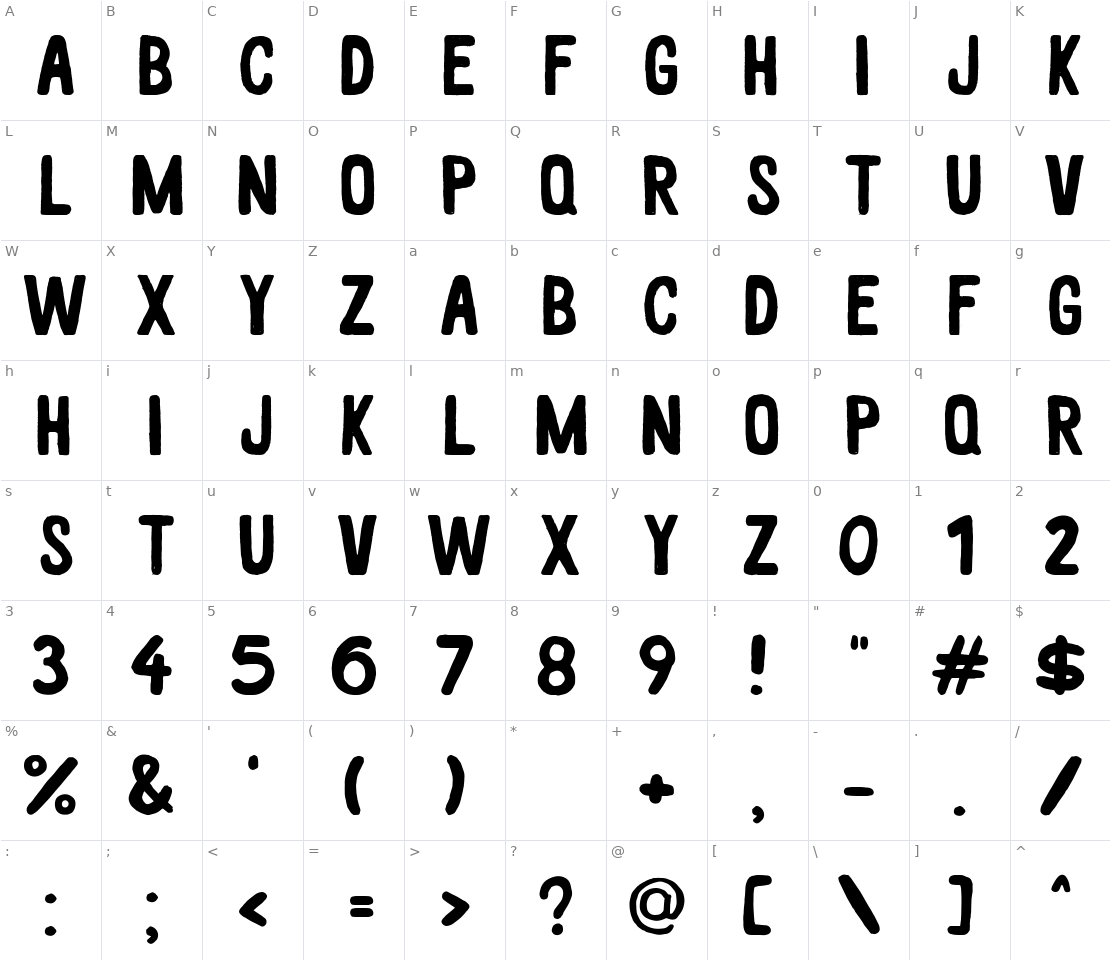
White Wood
White Wood is a bold, condensed uppercase face from Zansari with a rough, weathered texture that looks like paint peeling off old barn siding. The distressed letterforms carry a rustic, lived-in quality while staying readable at large sizes, making it a strong pick for posters, packaging, and branding that needs to feel handmade and a little worn down. Its tight proportions and heavy weight keep things punchy even with all that texture going on.